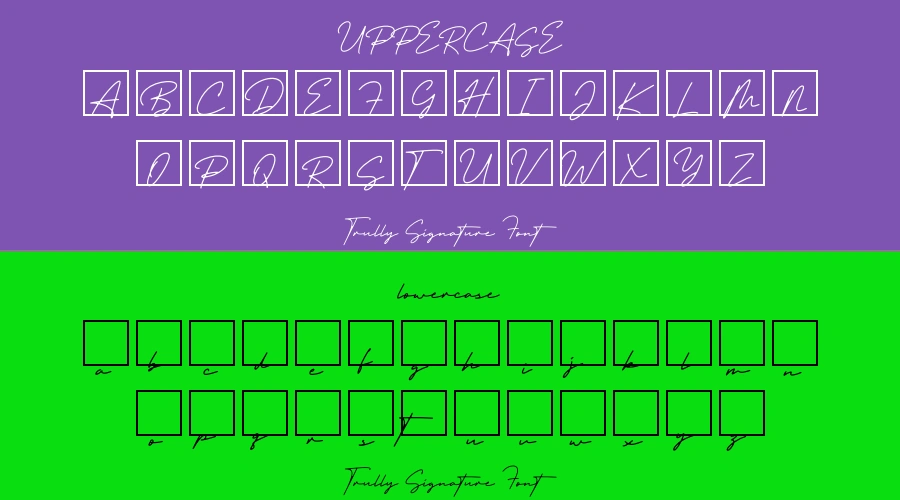
About Trully Signature Font
Trully Signature Font represents a sophisticated approach to type design, balancing elegant proportions with professional grade. Perfect for merchandise graphics, this font family showcases impressive personality and design heritage throughout its character set. Designers appreciate its versatility and reliability.
Designers will appreciate nuanced touches including clean lines and connecting forms, adding sophistication to any project. These features become apparent in exhibition titles, where reproduction fidelity matters most. The careful treatment of contrast level and creative versatility ensures optimal performance.